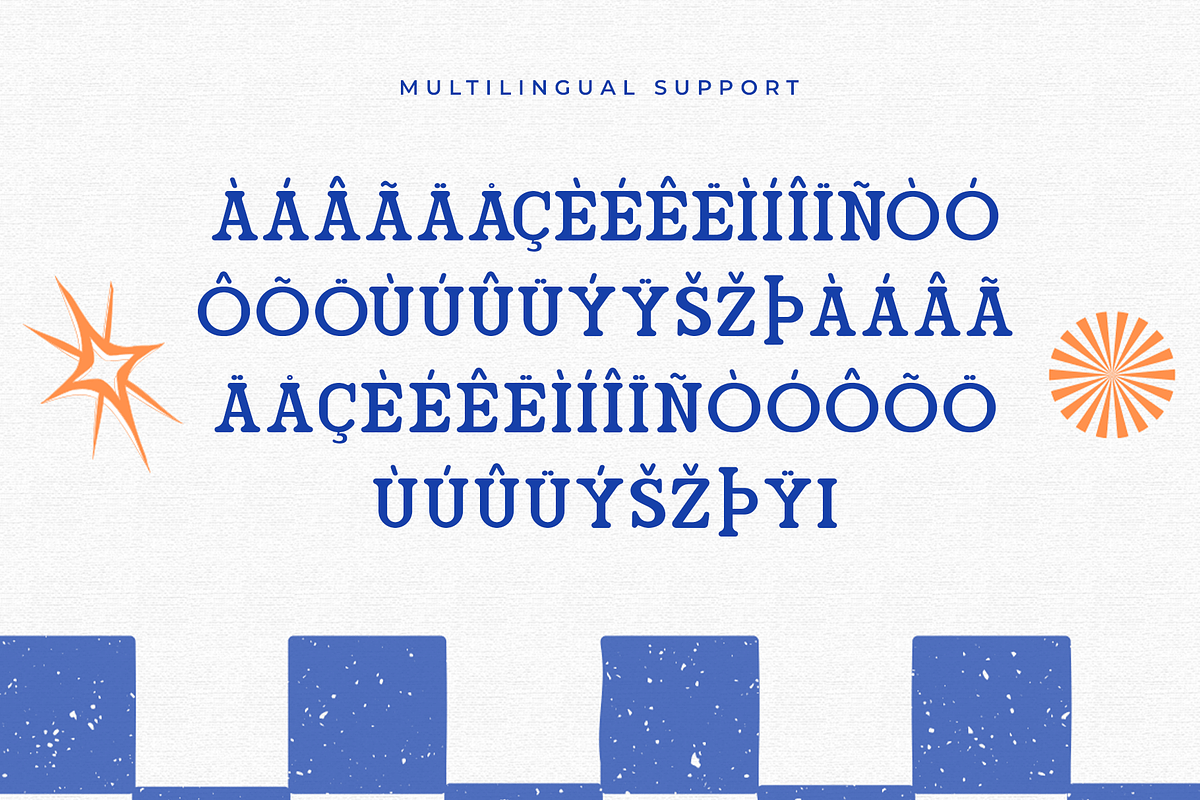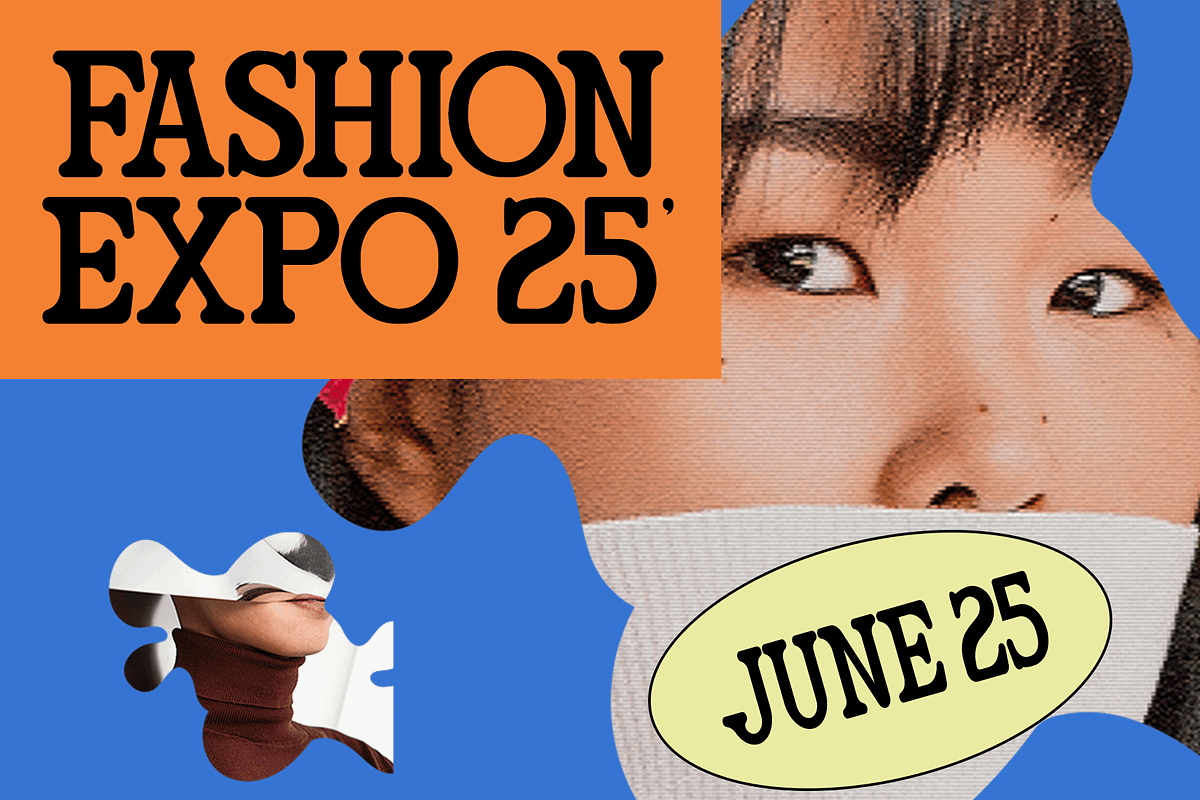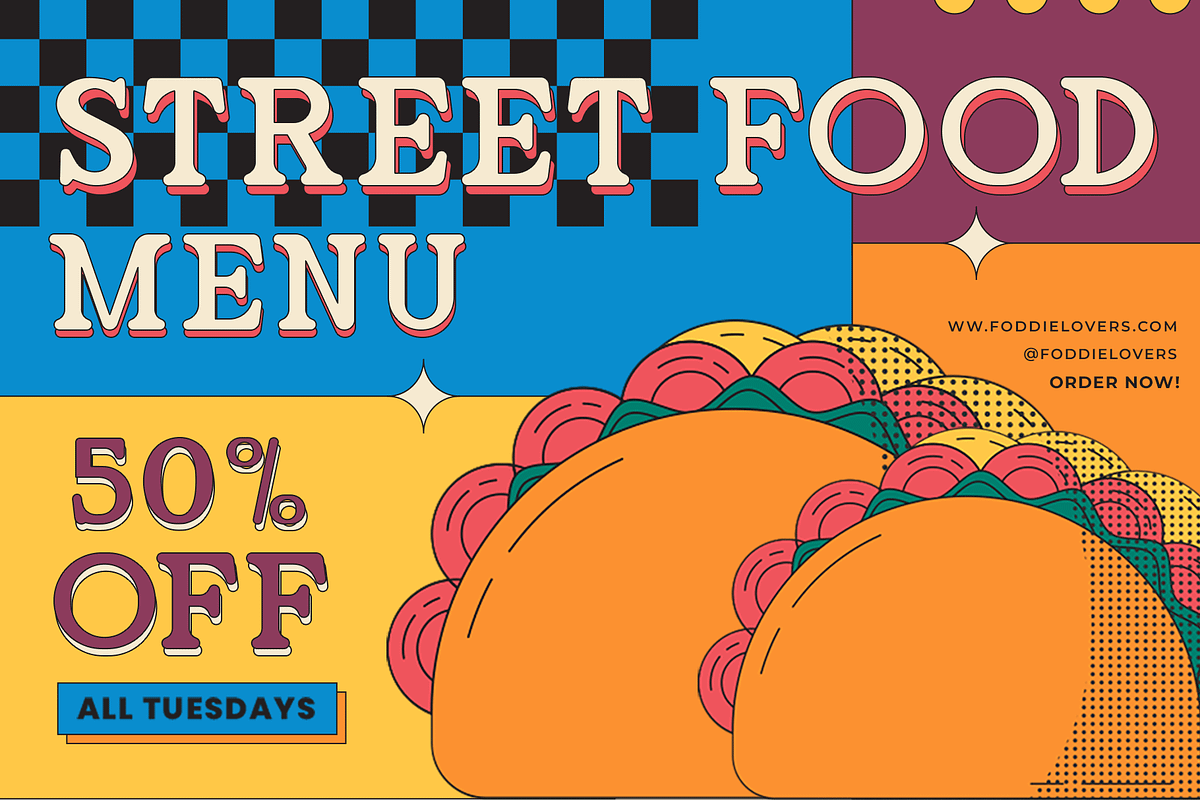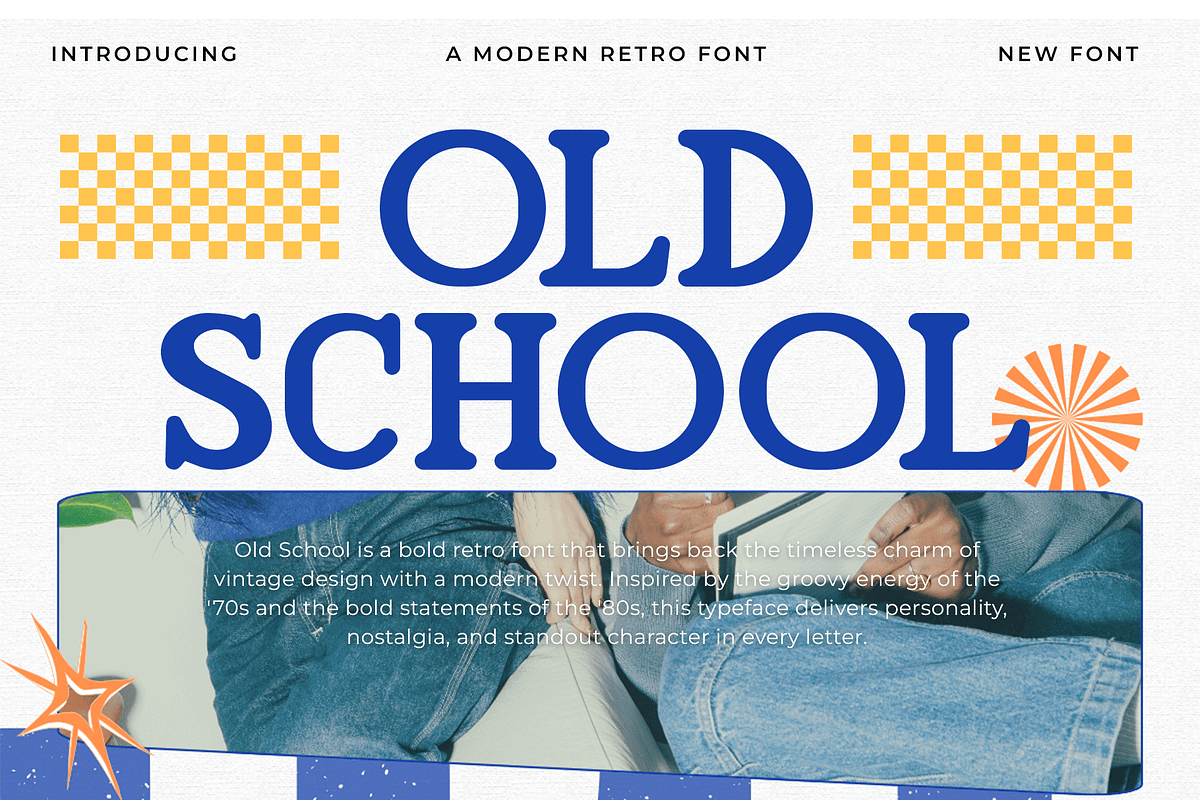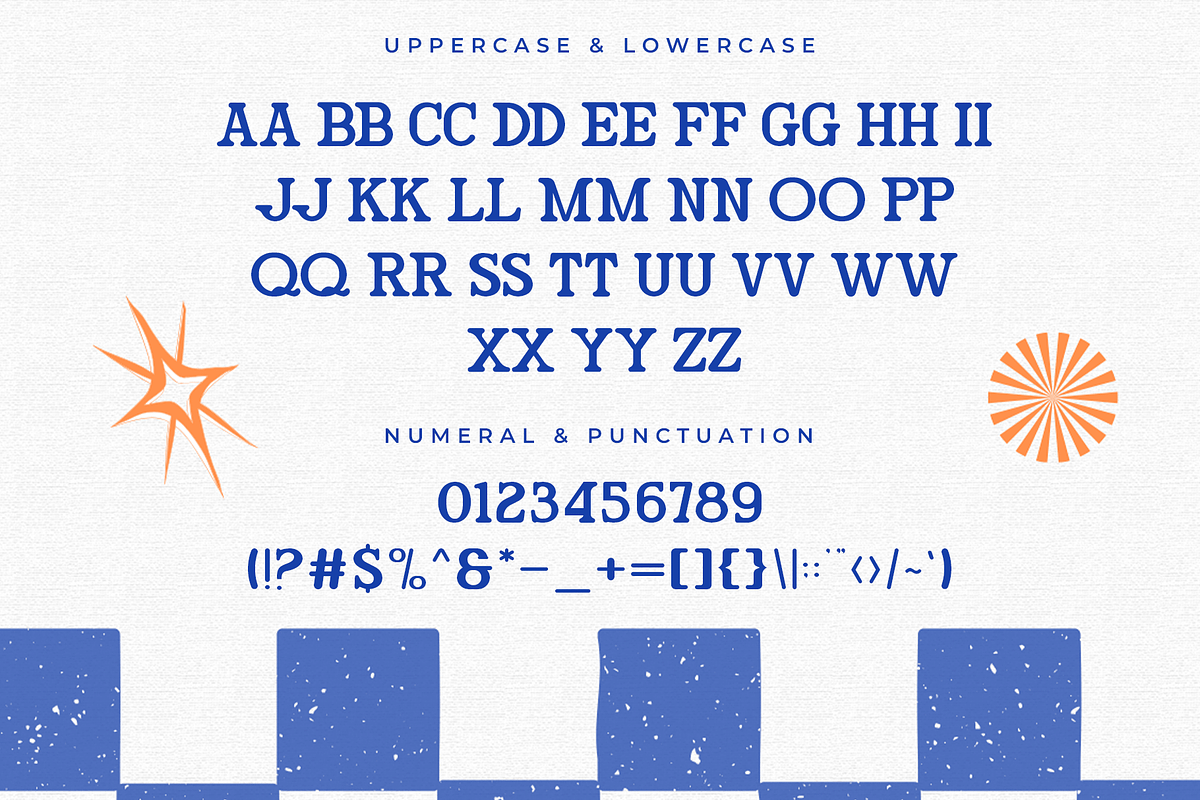
Old School – A Modern Retro Font
Old School is a modern retro font that fuses classic vintage aesthetics with a clean, contemporary touch. Inspired by signage, posters, and typography from the '70s and '80s, this font is packed with character and charm perfect for those who want to bring bold retro energy into modern design projects.
With strong curves, playful strokes, and a distinctive personality, Old School is ideal for headlines, branding, packaging, merchandise, posters, and any creative work that calls for a nostalgic yet trendy look. It comes with uppercase and lowercase characters, numerals, punctuation, and multilingual support to suit global needs.
Let your designs stand out with the perfect blend of retro soul and modern style Old School is here to take your typography back in time, beautifully.